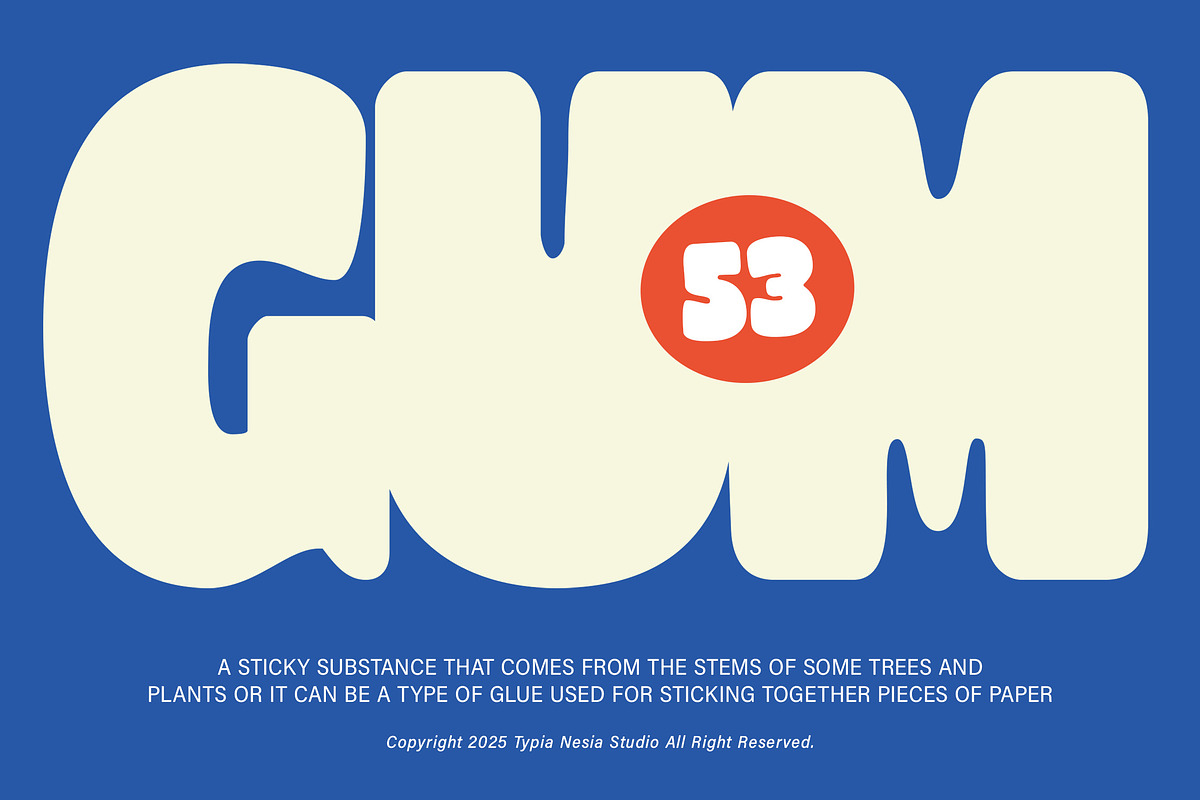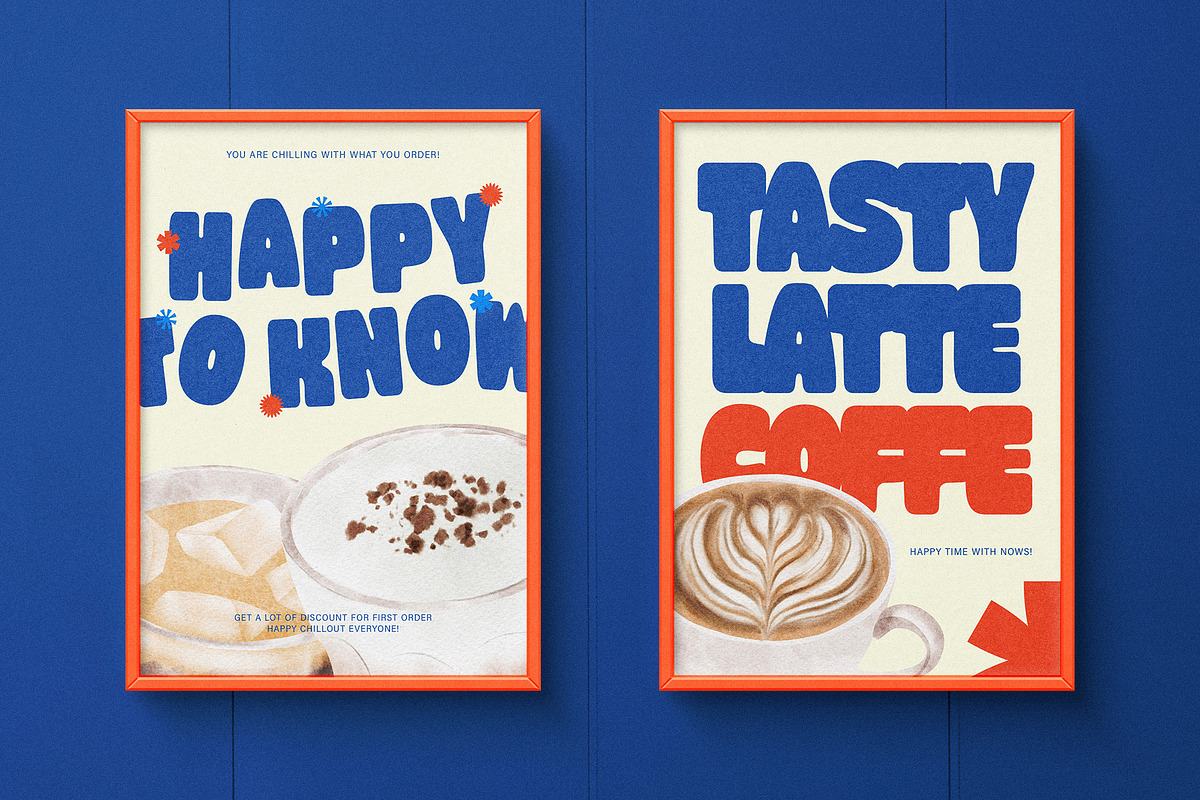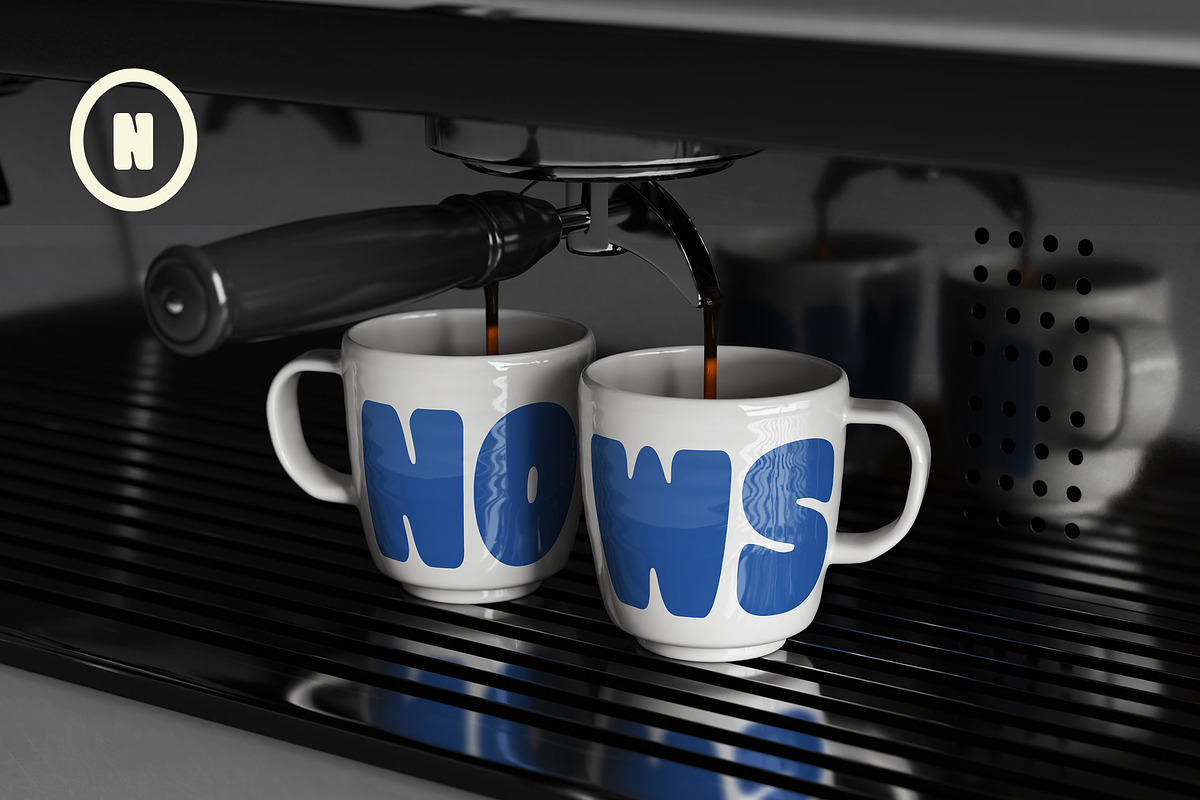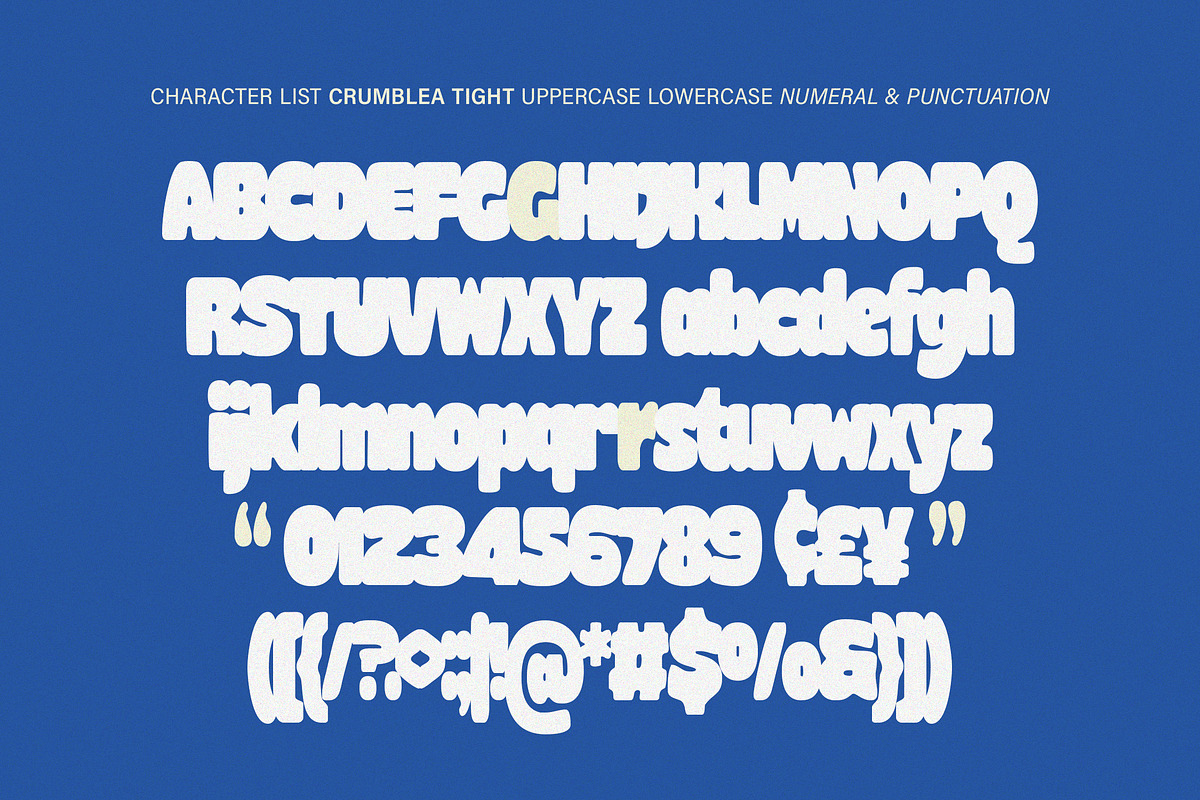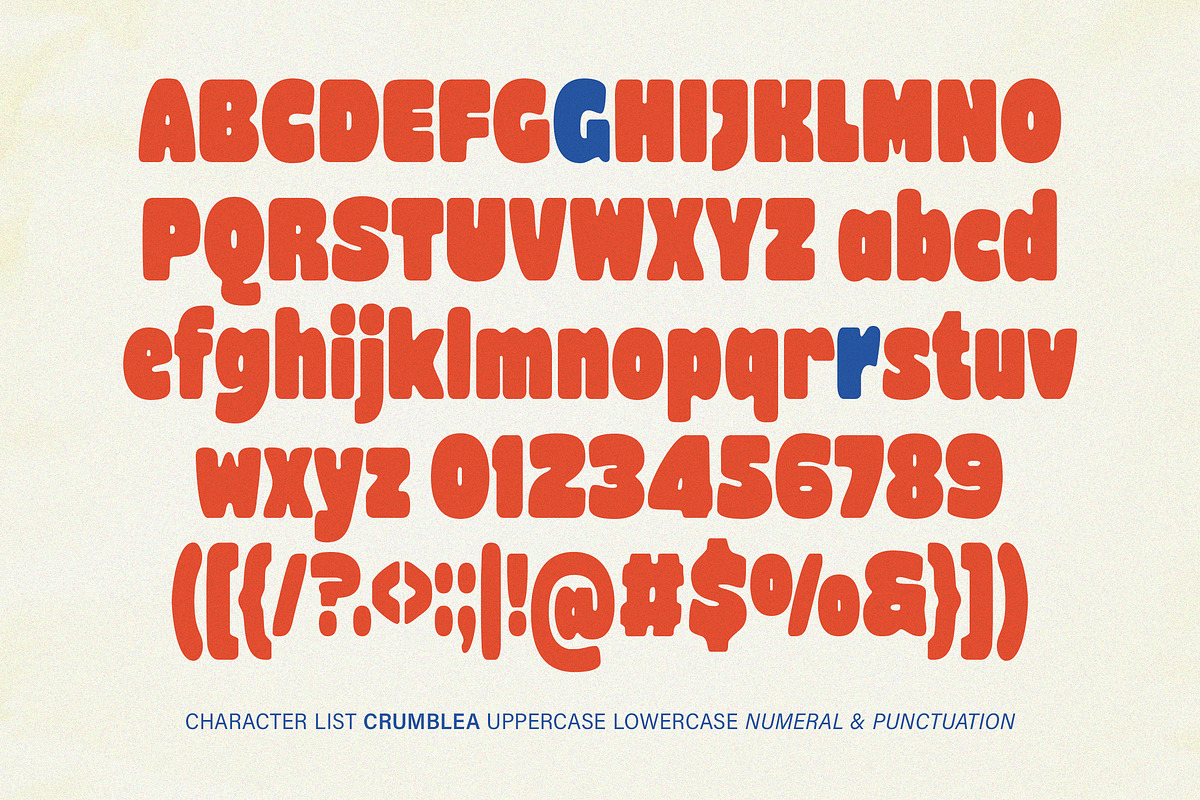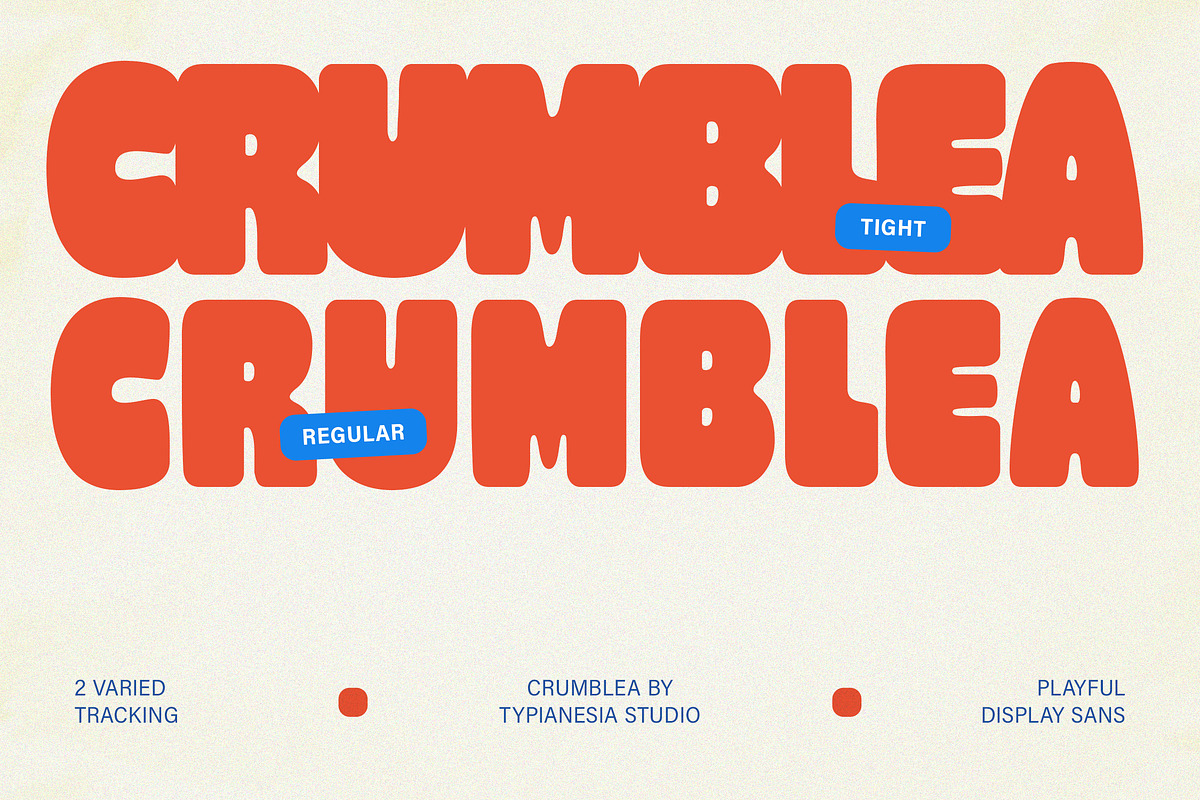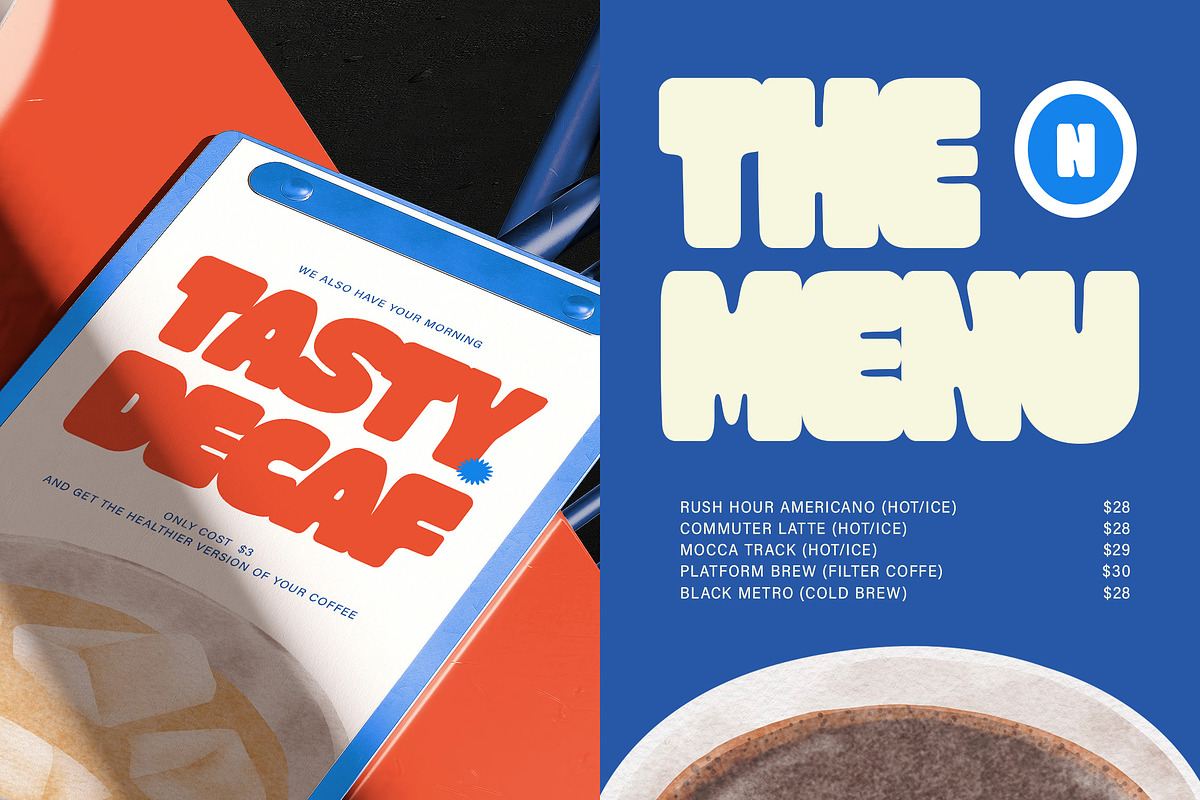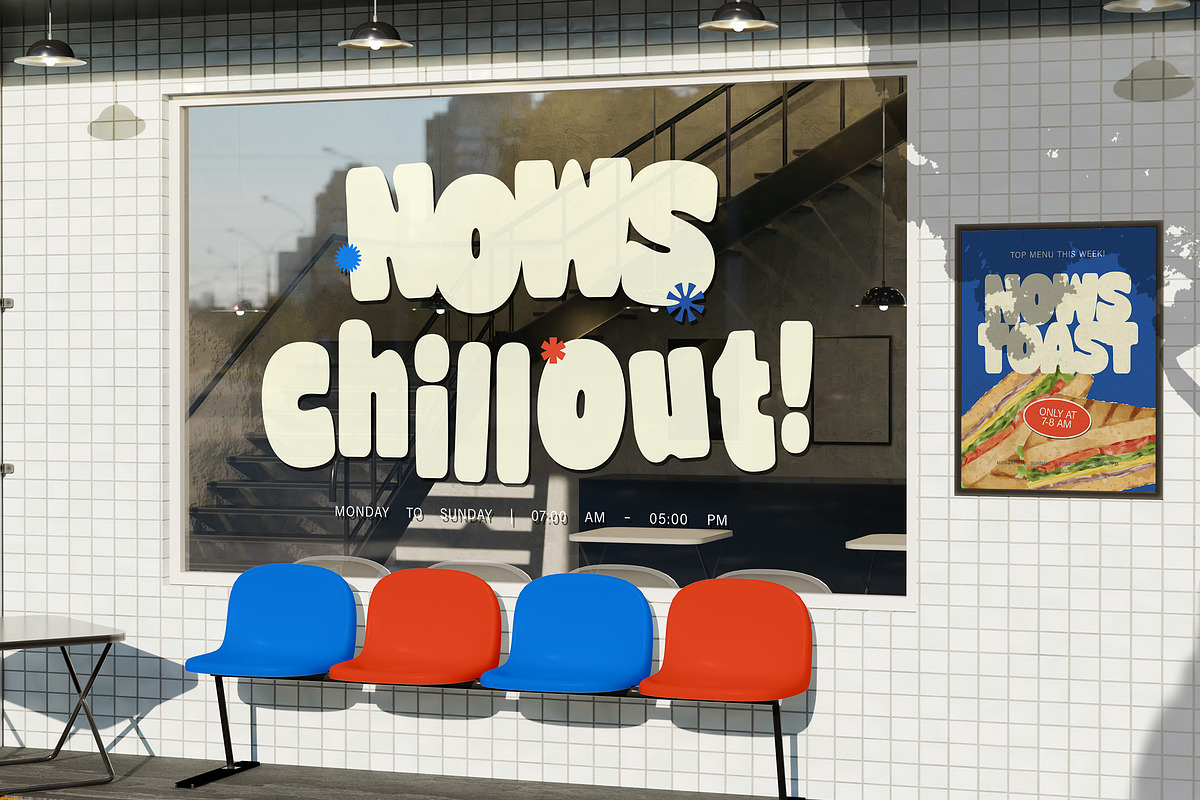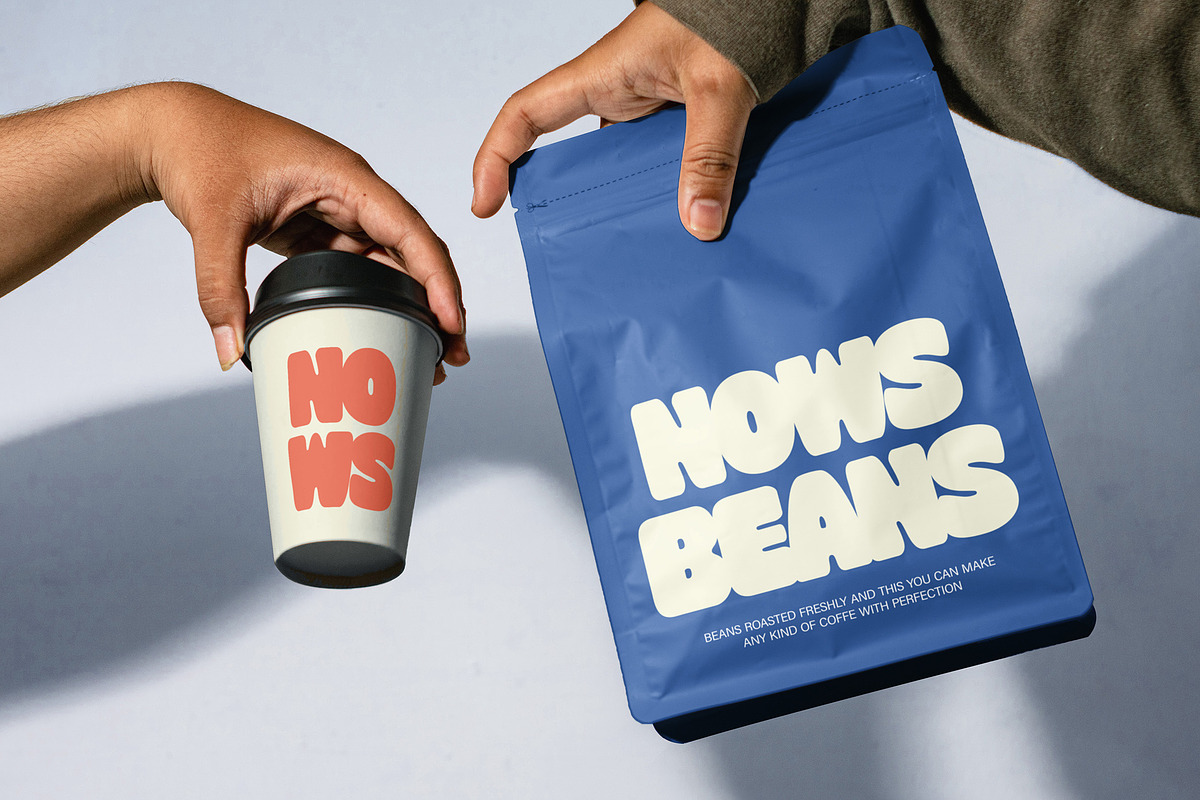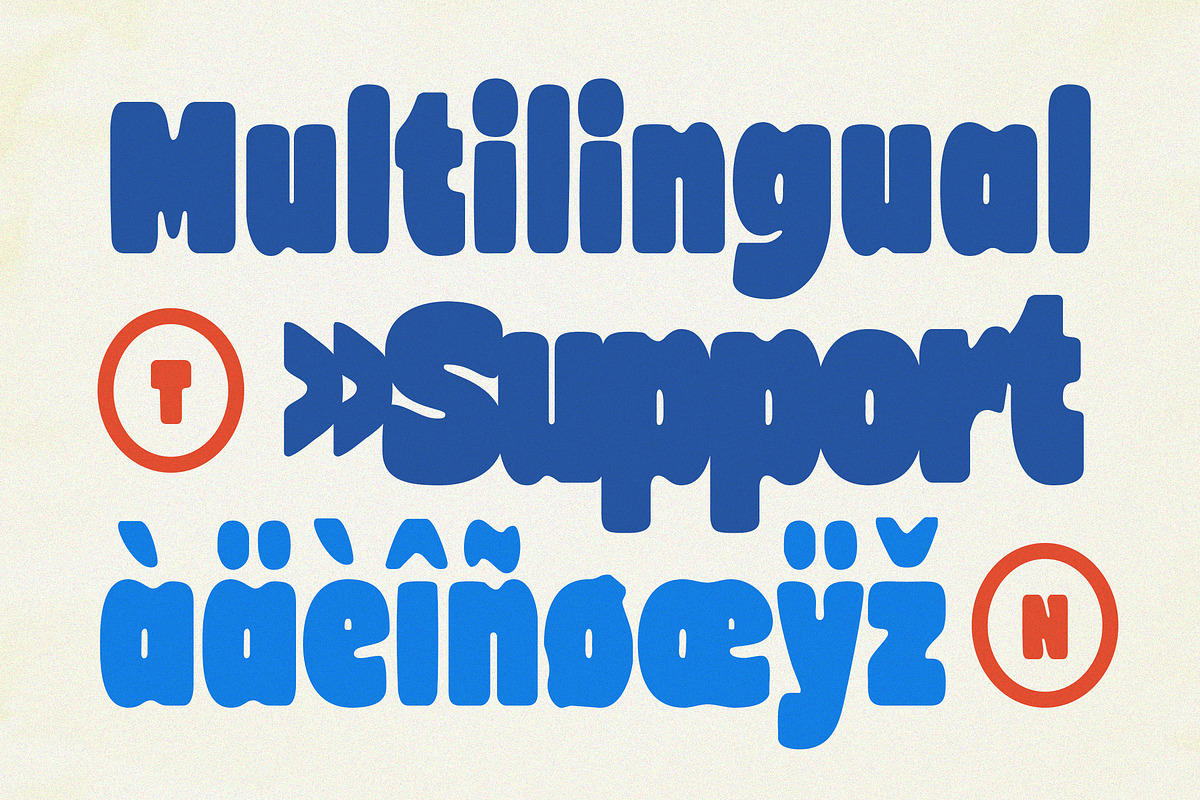
Crumblea - Modern Rounded Bold Sans
Crumblea - Modern Rounded Bold Chunky Logo Sans Font - Playful & Fun Display Font
Crumblea is a Modern Rounded Bold Chunky Logo Sans Font designed to bring energy and fun to any project. This typeface is bold and chunky, friendly rounded edges that give it a warm, playful personality. It perfectly embodies a groovy style ideal for capturing attention, such as high-impact headlines, memorable logo designs, it is especially well-suited for branding and packaging across the food, kids, cafe, bakery markets and any projects that require a touch of engaging, approachable and modern sans serif. Crumblea delivers the perfect blend of modern simplicity and visual delight.